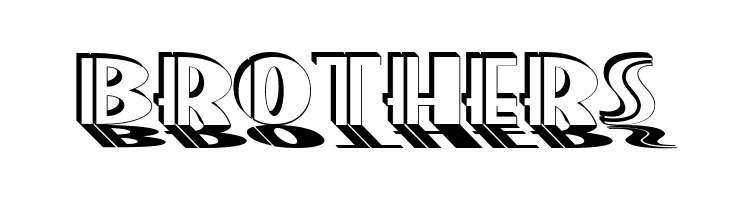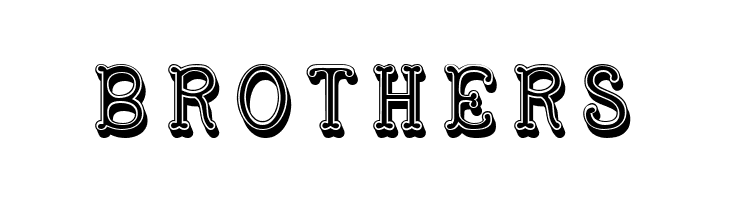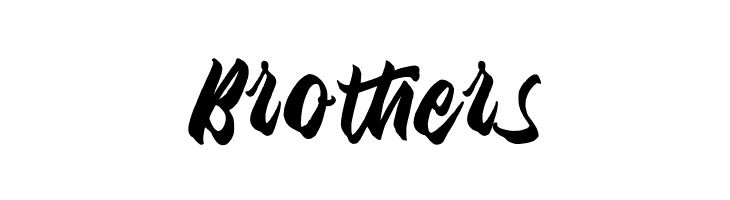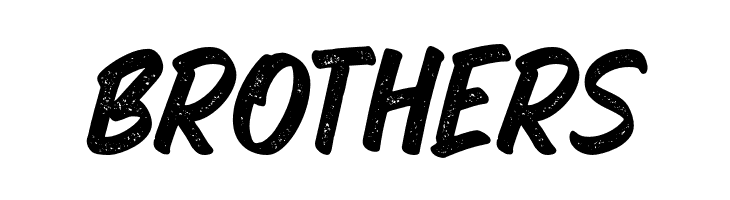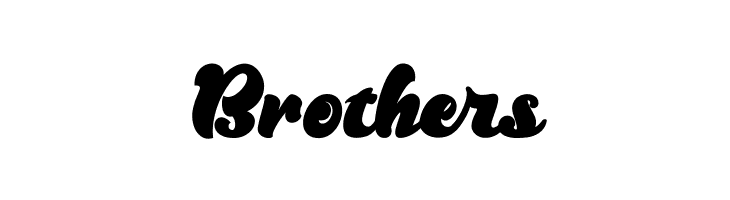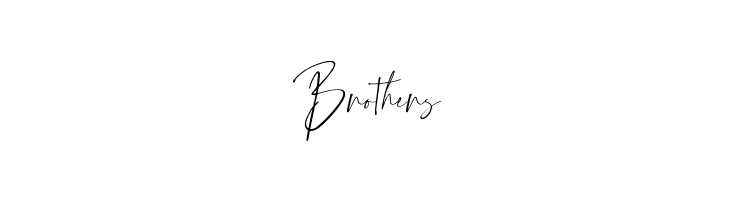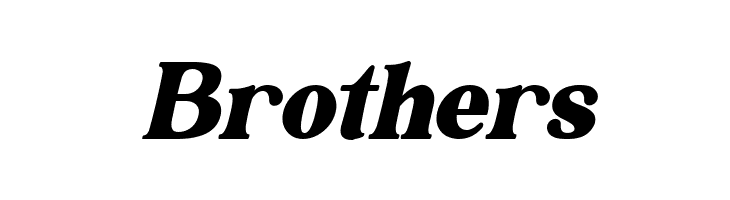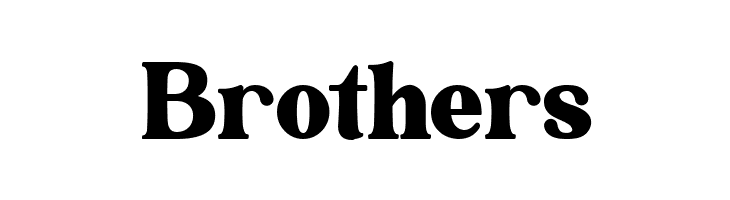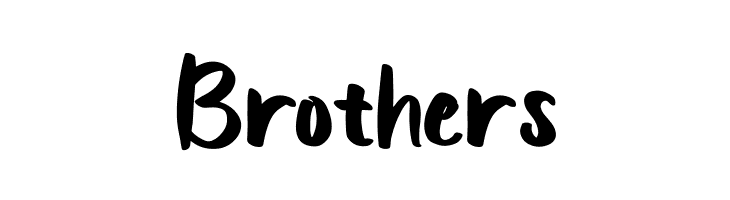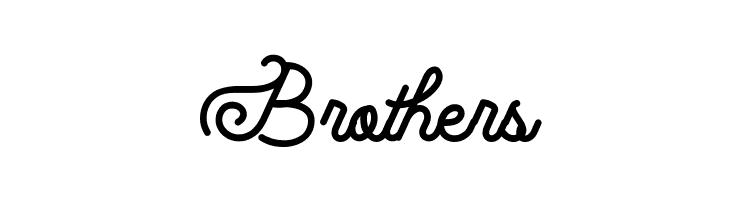
A bold, 3D geometric font with a modern, industrial style.
A modern, condensed italic font with a sleek and dynamic design.
A modern, italic font with angular, dynamic characters.
A bold, 3D-effect font with strong shadows and a vintage racing theme.
A bold, hand-drawn font with a playful and energetic style.
A bold, serif font with a regal and authoritative style.
A bold, elegant serif font with a classic yet modern appeal.
An elegant and bold italic font with a classic yet modern appeal.
An elegant, bold italic serif font with a classic and sophisticated style.
A pixelated, blocky font inspired by retro digital displays.
A bold, flowing script font with elegant, connected letterforms.
A playful, hand-drawn outlined font with a whimsical and casual style.
Bold, geometric sans-serif font with a modern and clean design.
A bold, geometric font with high contrast and tight spacing, perfect for impactful headlines.
A bold, sports-themed decorative font with illustrated icons and blocky numerals.
A bold serif font with high contrast and classic yet modern appeal.
A bold, textured font with a distressed, grunge style.
A bold, expressive script font with connected, rounded characters.
A bold, decorative font with vintage, ornate detailing and strong visual impact.
A classic serif font with bold strokes and elegant serifs.
Whimsical pictorial font with vintage silhouette illustrations.
Whimsical pictorial font with silhouette illustrations for each character.
A bold, expressive handwritten font with dynamic strokes and a lively appearance.
A bold, expressive handwritten font with dynamic, brush-like strokes.
A bold, gothic-style font with intricate, angular characters and a strong vertical emphasis.
A modern, elegant script font with flowing, calligraphic lines.
A bold, edgy font with jagged, brush-like strokes and a rebellious energy.
A classic serif font with bold, elegant curves and high contrast.
An elegant italic font with high contrast and flowing curves.
A bold, futuristic font with geometric and modern design elements.
A decorative script font with elegant, flowing curves and intricate swirls.
Cartoonish, character-based font with grandparent and child illustrations.
A bold, modern stencil-style font with geometric shapes and distinct breaks.
A modern, cursive script font with elegant, flowing strokes.
A casual, elegant handwritten font with fluid, connected strokes.